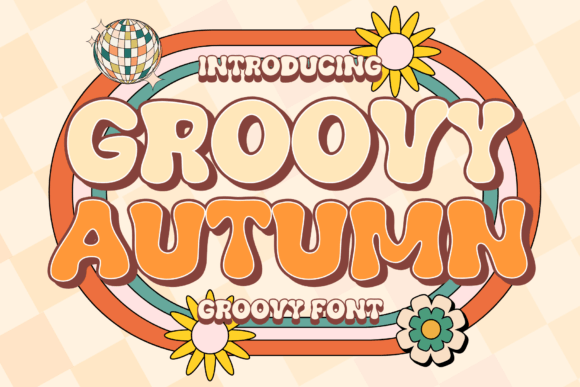
Groovy Autumn Font: The Perfect Addition to Your Hippie-Inspired Designs
Are you looking for a font that embodies the playfulness and authenticity of the groovy era? Look no further than the Groovy Autumn Font. This stylish retro font is ideal for all your hippie-inspired designs, and its versatility makes it perfect for a wide range of projects.
What is Groovy Autumn Font?
Groovy Autumn Font is a carefully crafted typeface that captures the essence of the 1960s and 1970s. Its unique design features and bold personality make it an excellent choice for designers looking to add a touch of nostalgia to their work.
Key Features of Groovy Autumn Font
- Retro Design: Groovy Autumn Font boasts a distinctly retro aesthetic that is reminiscent of the hippie era.
- Playful and Authentic: The font’s playful and authentic design makes it perfect for projects that require a touch of whimsy and personality.
- Versatile: Groovy Autumn Font can be used for a wide range of projects, from blog posts and logos to branding and advertising.
Uses for Groovy Autumn Font
Groovy Autumn Font is an incredibly versatile typeface that can be used for a wide range of projects. Here are some ideas to get you started:
- Blog Posts: Add a touch of personality to your blog posts with Groovy Autumn Font. It’s perfect for headings, titles, and even body text.
- Logos and Branding: Create a memorable logo or brand identity with Groovy Autumn Font. Its unique design features make it perfect for businesses that want to stand out.
- Advertising: Use Groovy Autumn Font to create eye-catching ads that grab attention. Its playful and authentic design makes it perfect for promoting products or services.
- Invitations and Greeting Cards: Add a touch of whimsy to your invitations and greeting cards with Groovy Autumn Font. It’s perfect for special occasions like birthdays, weddings, and holidays.
- Planners and Photo Albums: Use Groovy Autumn Font to add a personal touch to your planners and photo albums. Its playful design makes it perfect for scrapbooking and other craft projects.
- Decorations: Groovy Autumn Font can even be used for decorations, such as posters, flyers, and other materials.
Why Choose Groovy Autumn Font?
There are many fonts available that claim to have a retro or groovy vibe, but Groovy Autumn Font stands out from the rest. Here are just a few reasons why:
- Unique Design: Groovy Autumn Font has a unique design that is unlike any other font on the market.
- High-Quality: The font is made from high-quality materials and is designed to look great in any context.
Tips for Using Groovy Autumn Font
Here are a few tips for using Groovy Autumn Font in your designs:
- Use it Sparingly: While Groovy Autumn Font is a beautiful font, it can be overwhelming if used too much. Use it sparingly to add a touch of personality to your designs.
- Pair it with Other Fonts: Groovy Autumn Font pairs well with other fonts, such as sans-serif fonts or script fonts. Experiment with different pairings to find the one that works best for your design.
- Experiment with Colors: Groovy Autumn Font looks great in a variety of colors, from bright and bold to pastel and soft. Experiment with different colors to find the one that works best for your design.
Groovy Autumn Font is a stylish retro font that is perfect for hippie-inspired designs. Its unique design features, playful and authentic personality, and versatility make it an excellent choice for designers looking to add a touch of nostalgia to their work. Whether you’re working on a blog post, logo, branding project, or anything else, Groovy Autumn Font is sure to make a statement.